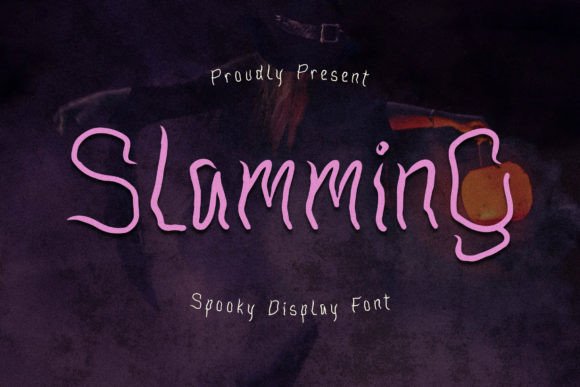
Prepare to be spooked by Slamming Font, the display font that adds a spine-chilling touch to your projects. Designed by the masters of haunting typography, Glorytype Studio, Slamming is the definitive font for conjuring eerie atmospheres and leaving a lasting impression.
Unleash the spooky allure of Slamming and make your words dance with a touch of the supernatural. Create logos that emanate an aura of mystery, branding projects that send shivers down the spine, and homeware designs that add a touch of the macabre to everyday objects.
With Slamming, you have the power to transform product packaging into haunted havens, mugs into cauldrons of creativity, and quotes into spine-tingling expressions. Turn posters into haunting masterpieces, shopping bags into harbingers of eerie elegance, and t-shirts into statements that chill to the bone.
Let Slamming cast its spell on book covers, transforming them into portals to haunted realms. Send shivers down the spines of your recipients with invitation cards and greeting cards that whisper secrets of the supernatural. Create labels that evoke a sense of ancient mysteries and add a touch of the spooky to your photography.
Whether it's for a watermark that leaves a haunting trail or a special event that demands a touch of the macabre, Slamming is the font that weaves its eerie magic into every project. Unleash your creativity and let Slamming be the ghostly guide that leads your designs into the realm of the supernatural.